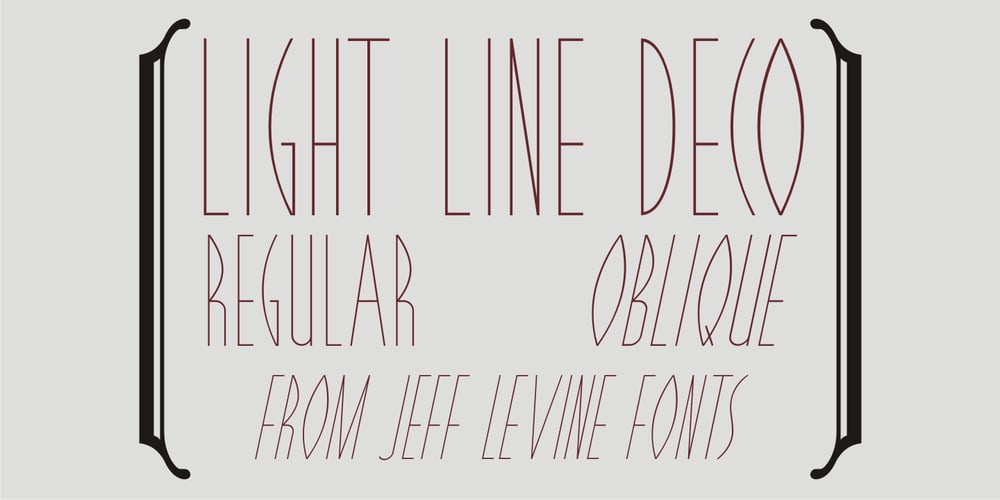
Light Line Deco JNL
Light Line Deco JNL font
Light Line Deco JNL Font Family was designed by Jeff Levine and published by Jeff Levine. Light Line Deco JNL contains 2 styles and family package options. The unusual, thin line hand lettering on the cover of the sheet music for 1936’s “If You Love Me” was the basis for Light Line Deco JNL, which is available in both regular and oblique versions.